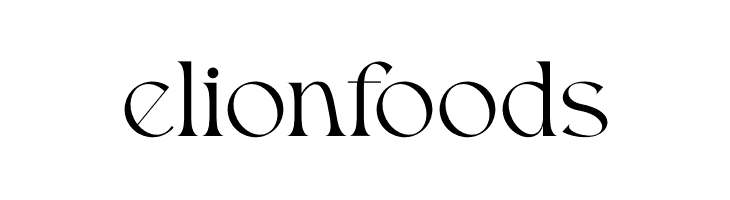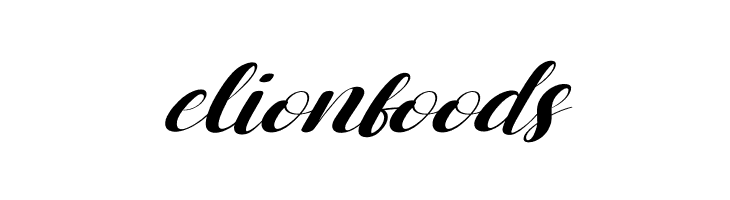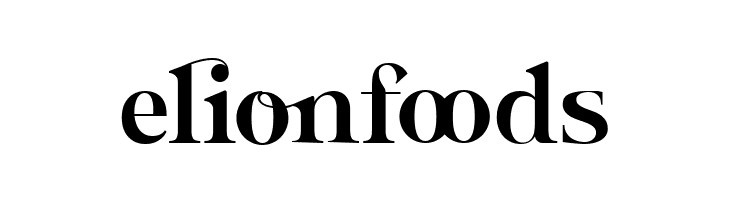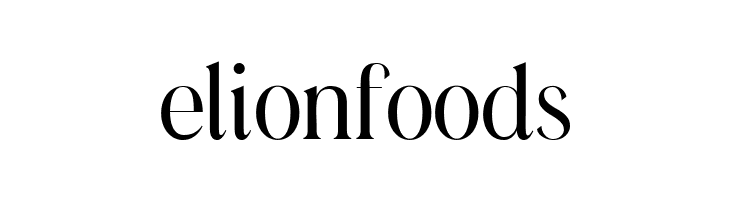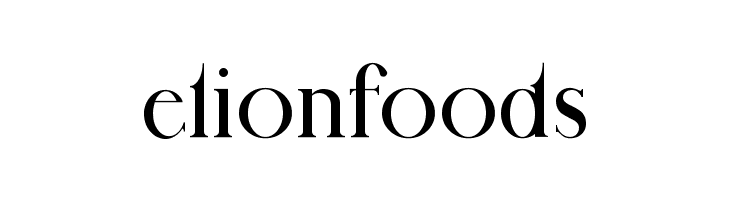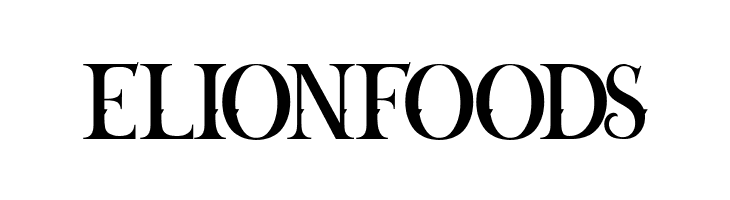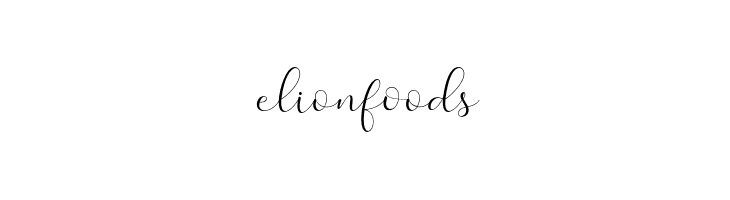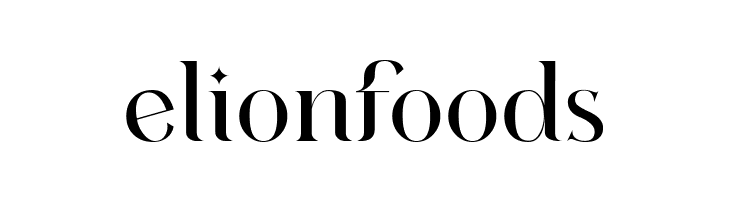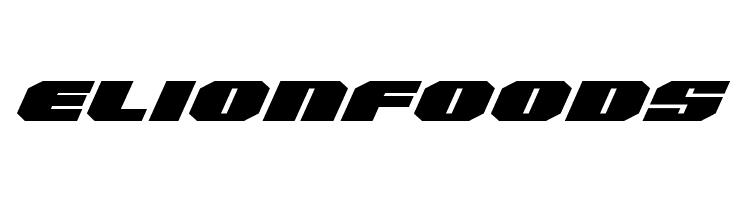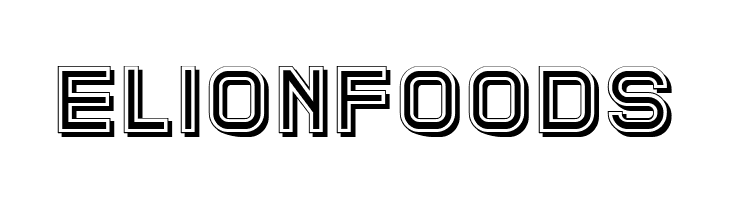
A high-contrast serif font with elegant, refined strokes and sharp serifs.
A sophisticated script font with flowing, high-contrast strokes.
A bold, high-contrast serif font with elegant, angular serifs.
Elegant serif font with high contrast and classic appeal.
A sophisticated serif font with sharp serifs and high contrast strokes.
A bold, elegant serif font with high contrast and pronounced serifs.
A graceful script font with flowing, interconnected letters and high contrast strokes.
A high-contrast, elegant serif font with sharp serifs and refined curves.
A bold, geometric font with a three-dimensional outline effect.